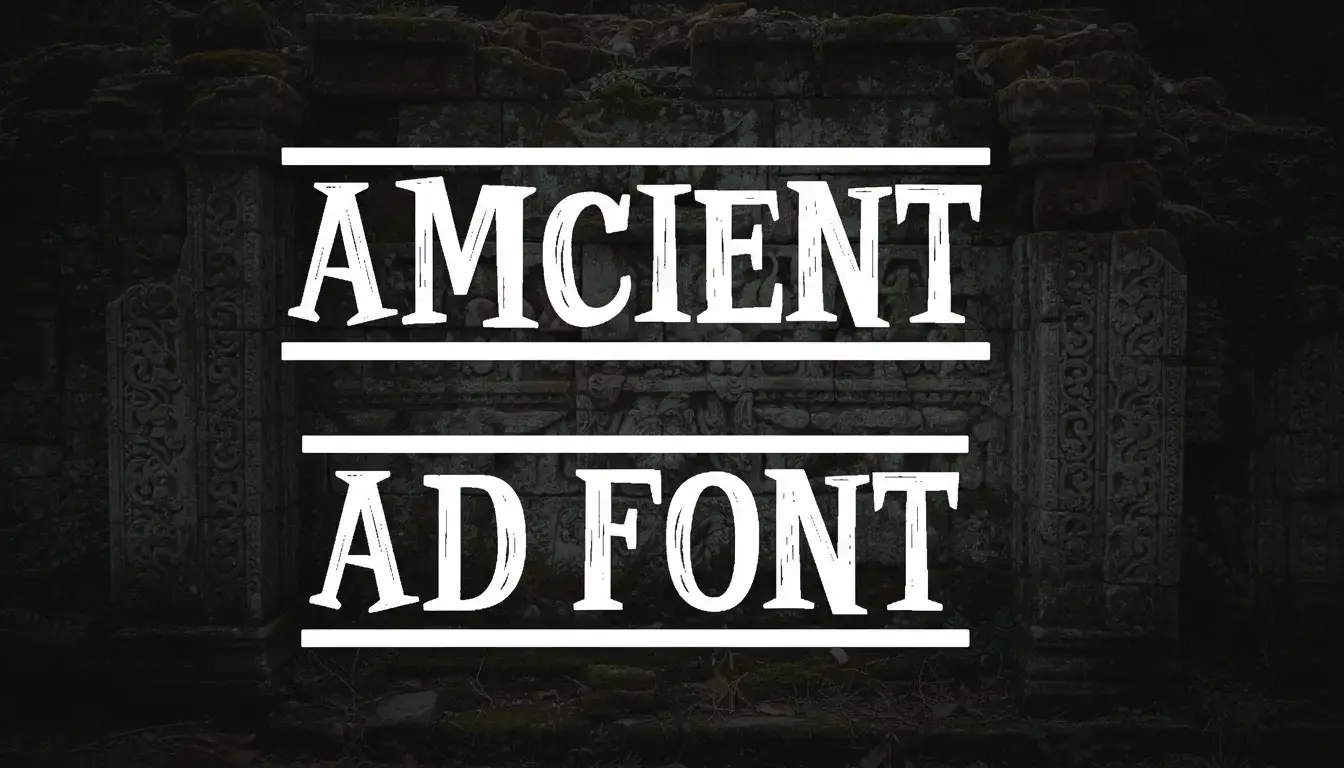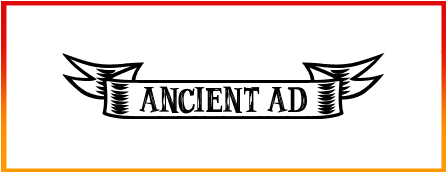
Ancient Ad Font
Ancient Ad
Ancient Ad is a fancy font designed by IMAGEX. It's a decorative display font with plenty of personality, made to grab attention. It's a free download, and you can try it with your own text in the preview above first.
- Designer: IMAGEX
What You Can Type With Ancient Ad
Ancient Ad covers the full alphabet in upper and lowercase, plus all ten numbers, so you can set names, dates and prices without switching fonts. Common punctuation such as &, !, ? and @ is included as well. It also has the accented letters you need for Spanish, French, German, Portuguese and Italian.
Where Ancient Ad Works Best
Designers usually reach for fonts like Ancient Ad when they're making posters, logos and eye-catching headlines. Use it for one standout word or headline and let simpler fonts handle the rest.
Does Ancient Ad support accented letters?
Yes. Ancient Ad includes the accented letters needed for Spanish, French, German, Portuguese and Italian, so it works for more than just English.